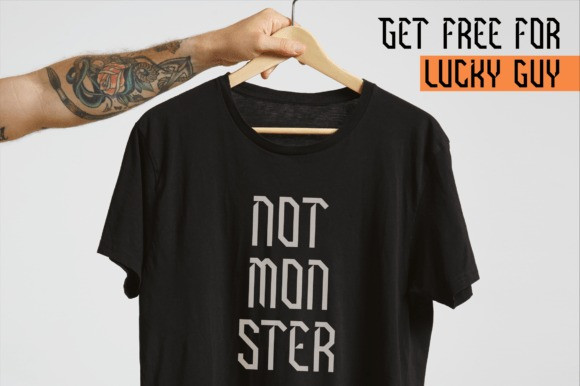
Glaruda Skyline Font
Glaruda Skyline Font is a bold and assertive serif font. No matter the topic, this font will be an incredible asset to your fonts’ library, as it has the potential to elevate any creation.